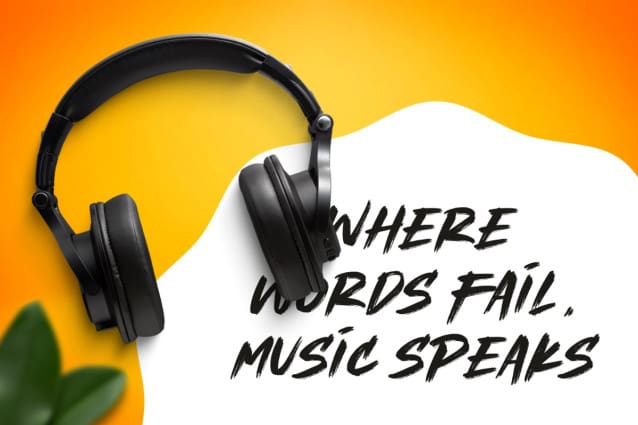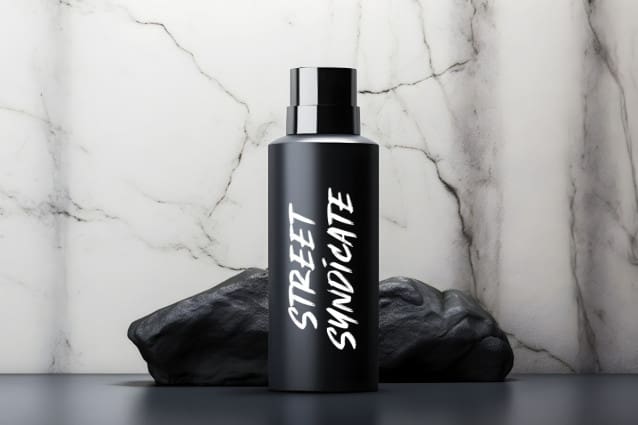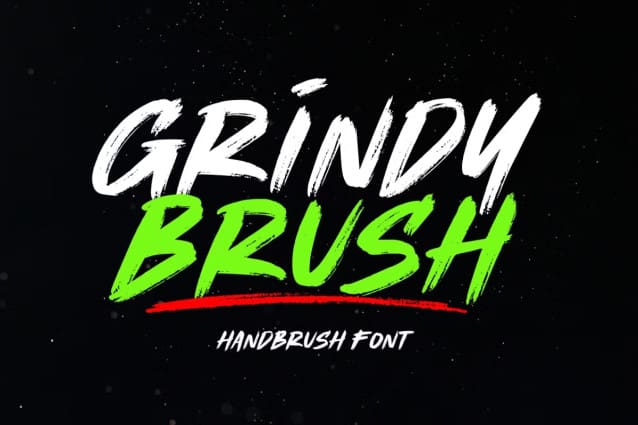
Grindy Brush Font
Grindy Brush Font is a bold and dynamic handbrush font with a raw, textured style. Perfect for posters, logos, and creative designs, it brings an energetic and artistic touch to your projects!